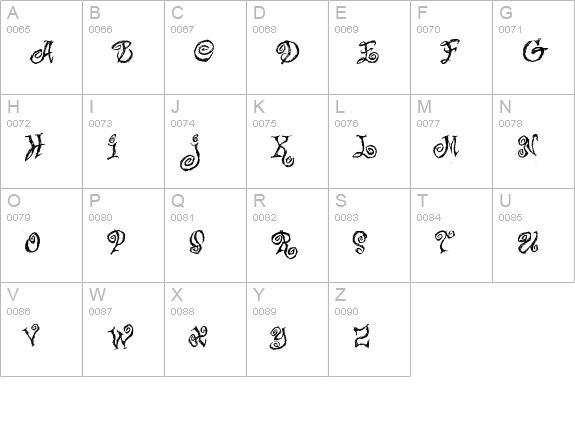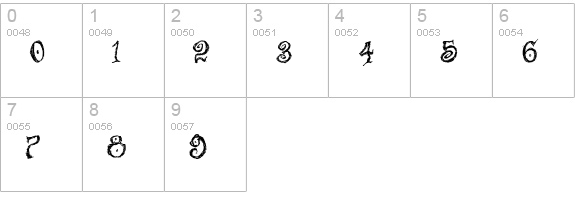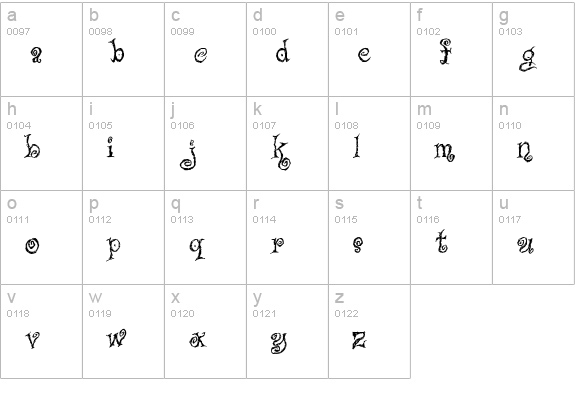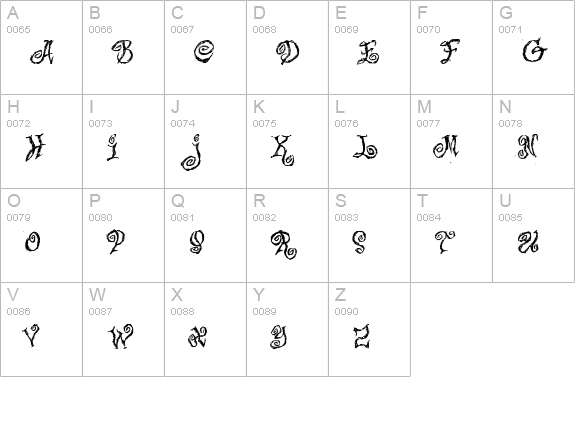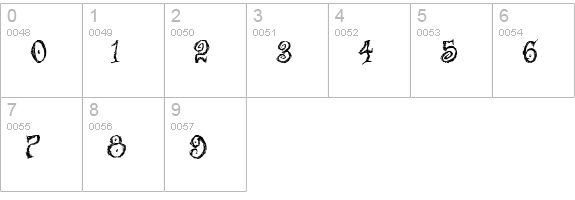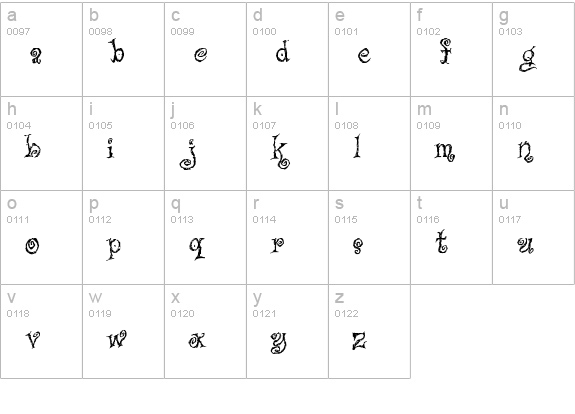
Caffe Latte Font Details
Introducing Caffe Latte, a font that exudes elegance and sophistication. This exquisite typeface combines the perfect balance of modernity and classic charm, making it the ideal choice for any design project. Its smooth curves and gentle strokes create a sense of fluidity, capturing the essence of a freshly brewed cup of coffee. Caffe Latte stands out with its impeccable attention to detail, showcasing a refined and timeless aesthetic. Its versatile nature allows it to seamlessly adapt to various design styles, whether it be for logos, branding, invitations, or editorial layouts. With its ability to effortlessly convey both professionalism and creativity, this font is sure to elevate any project to new heights. But what sets Caffe Latte apart is not just its stunning design – it's also free! Yes, you read that right. This exceptional font is freely available to download at FontsMarket.com. Now, you can add a touch of elegance to your designs without breaking the bank. It's a rare opportunity to acquire such a high-quality font without any cost, so don't miss out! So why wait? Indulge in the smooth, velvety goodness of Caffe Latte and let your creativity flow. Whether you're a seasoned designer or just starting out, this font will be your go-to choice for creating stunning and captivating visuals. Download Caffe Latte today and experience the perfect blend of style, versatility, and affordability.